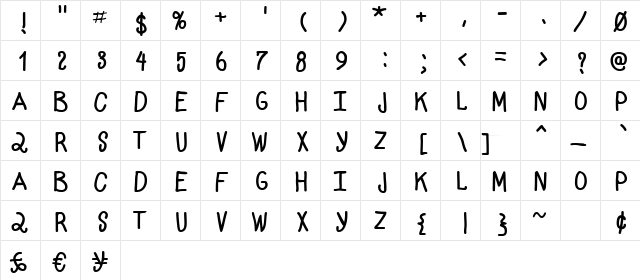
Monotone Regular
| Foundry | RudynFluffy Entertainment |
| Designer | RudynFluffy |
Design Context for Monotone Typeface
Monotone uses fixed-width spacing throughout, giving it the structured, systematic character associated with coding environments and technical documentation.
Pro Tip: Pair Monotone with a proportional sans for UI contexts where code-style labels and regular body copy need to coexist.